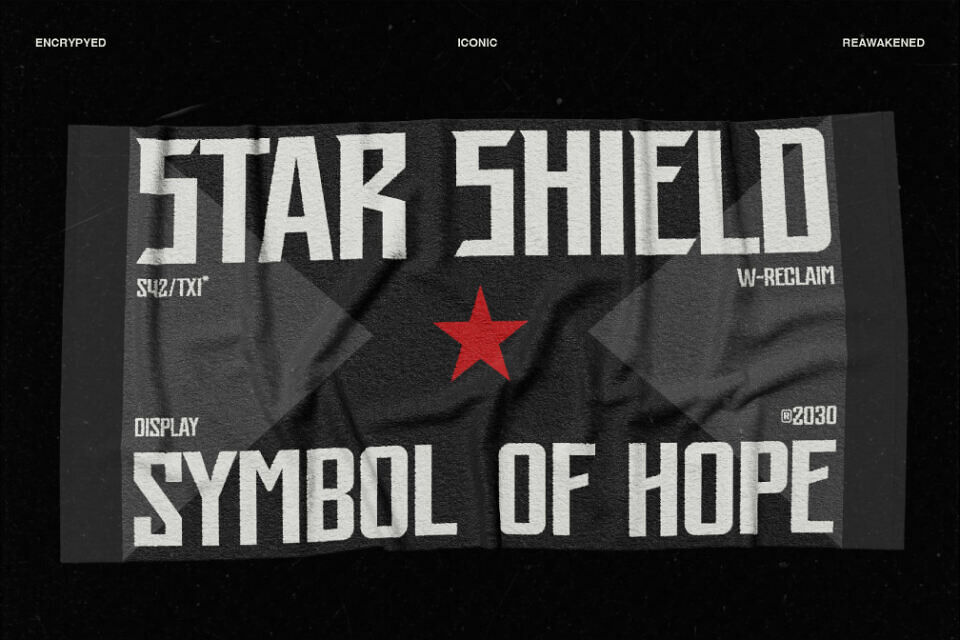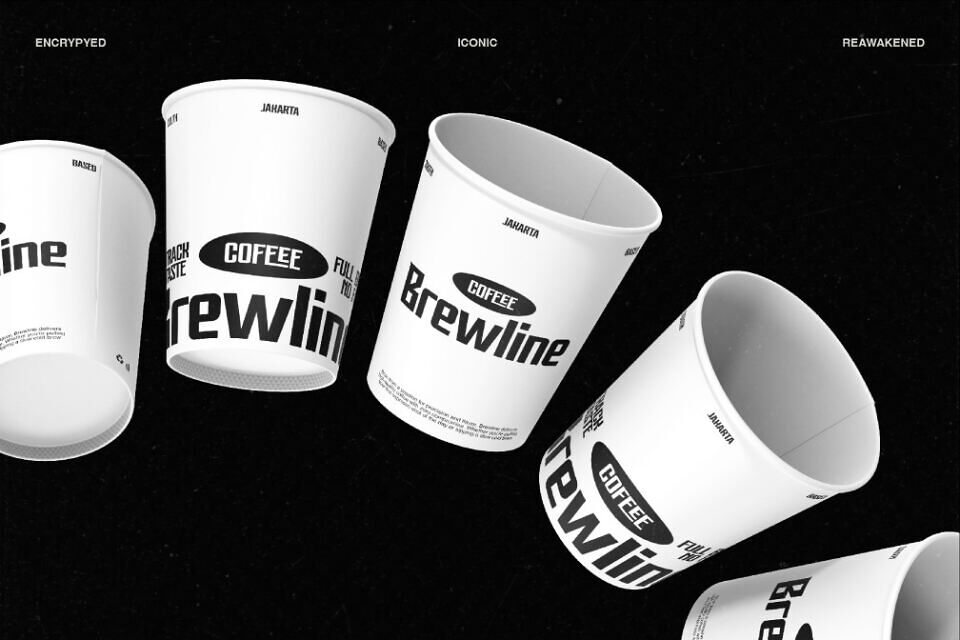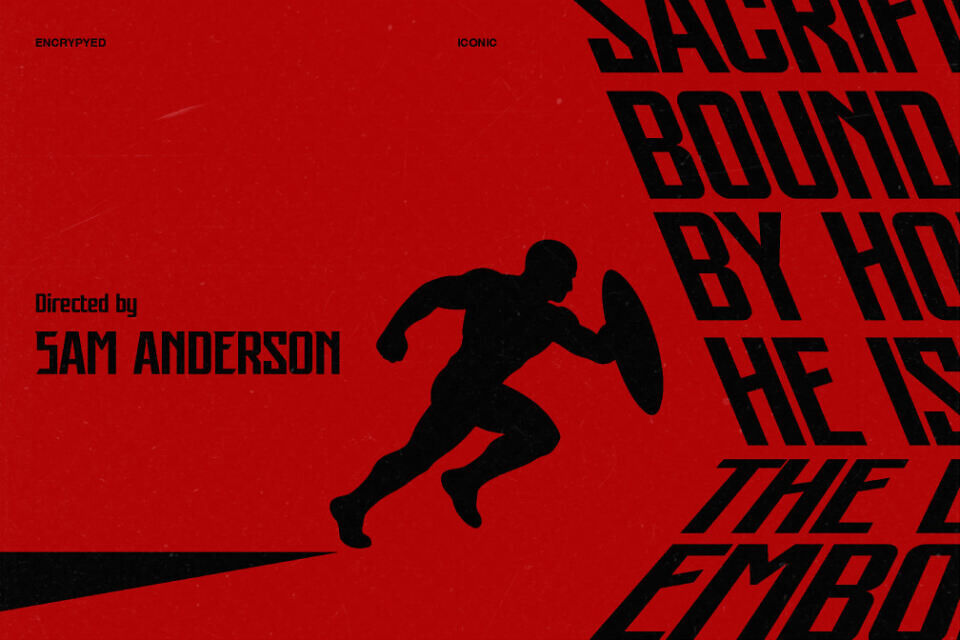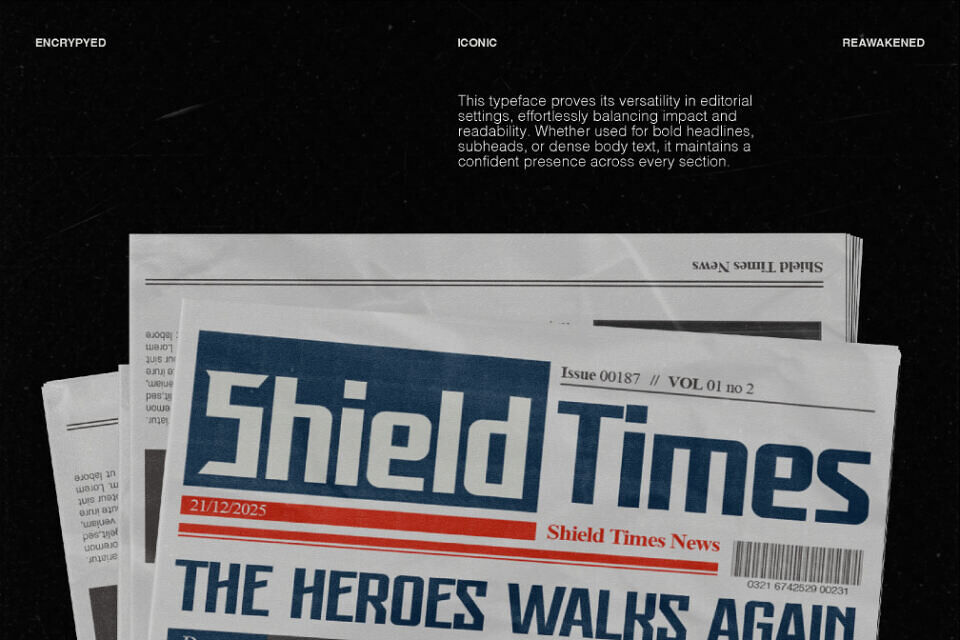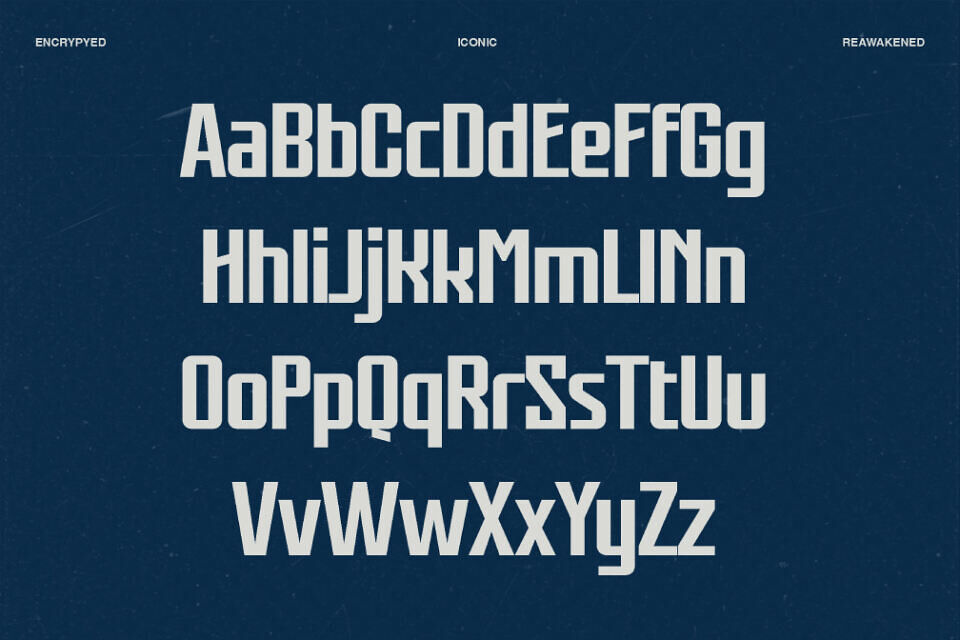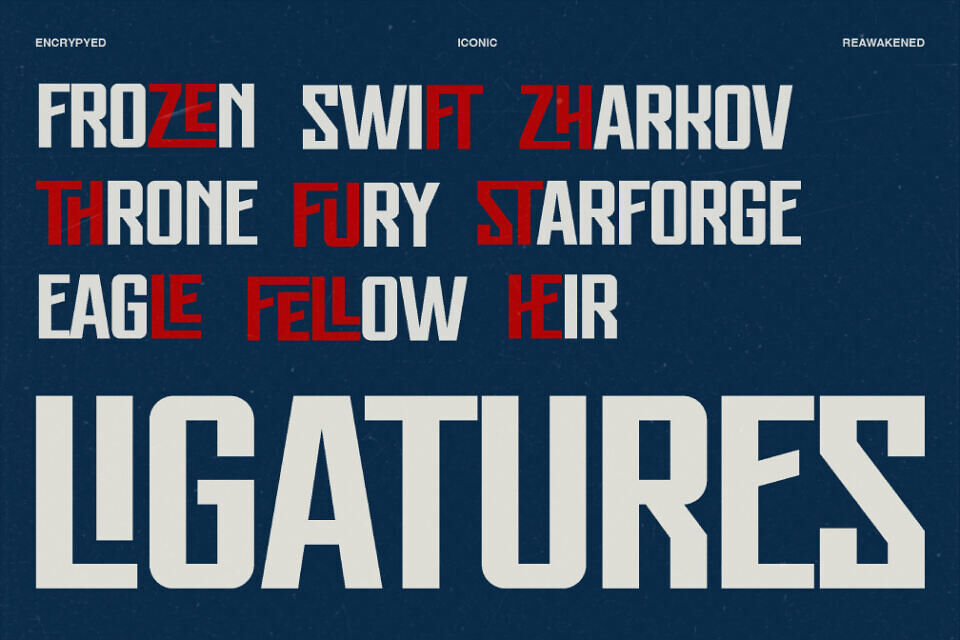
Star Shield Font features bold, large characters with a modern, curved aesthetic. Ideal for headlines, logos, and product labels, it offers over 100 versatile characters.
Ideal for graphic designers and marketing businesses, Star Shield guarantees crisp, high-impact typography, ensuring readability and visual appeal across diverse media.